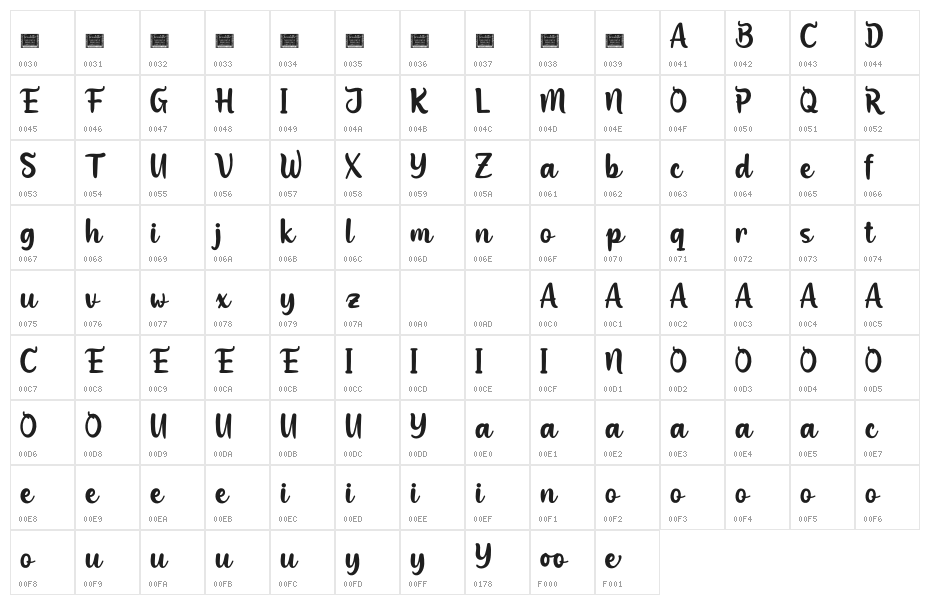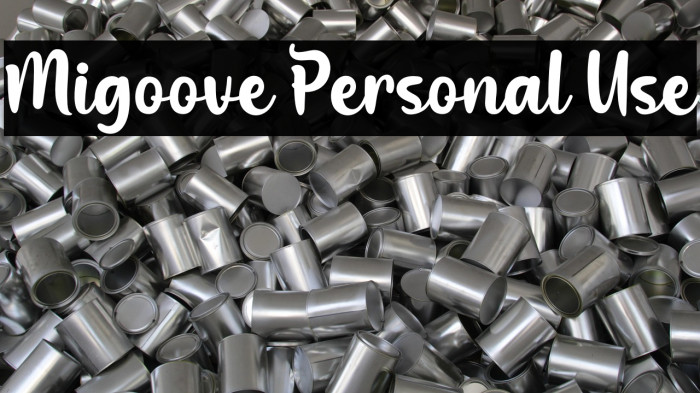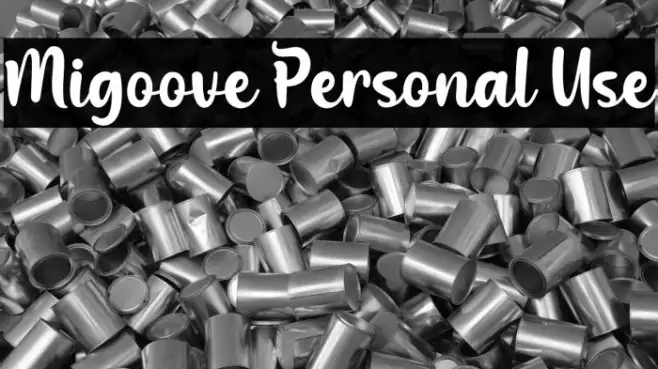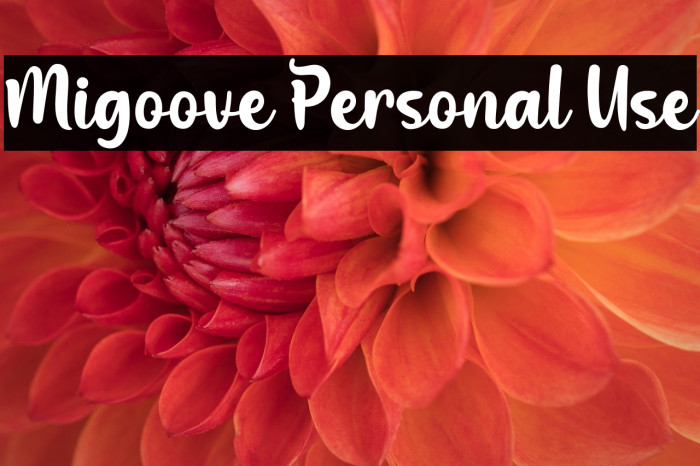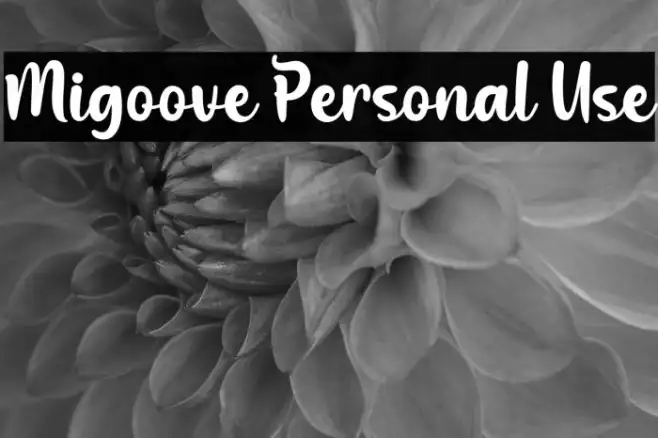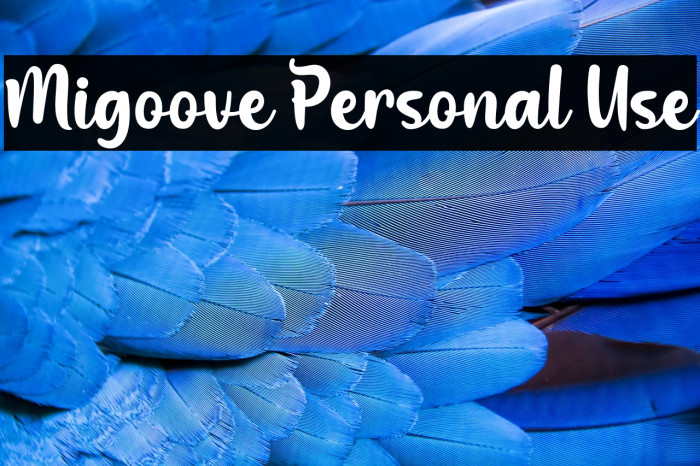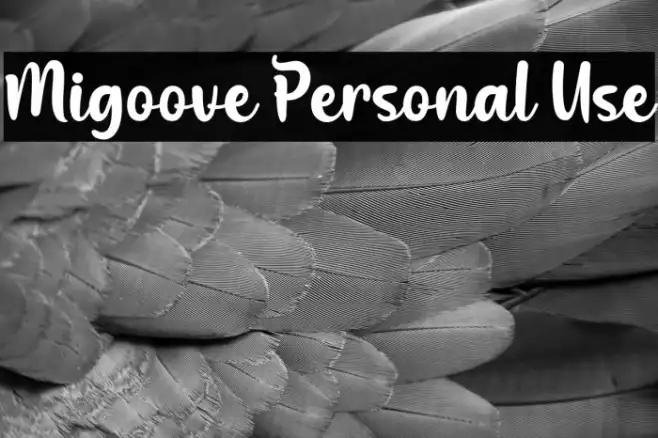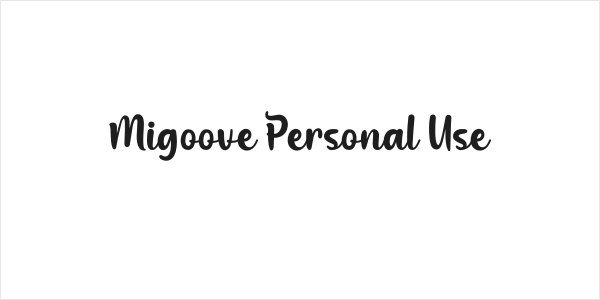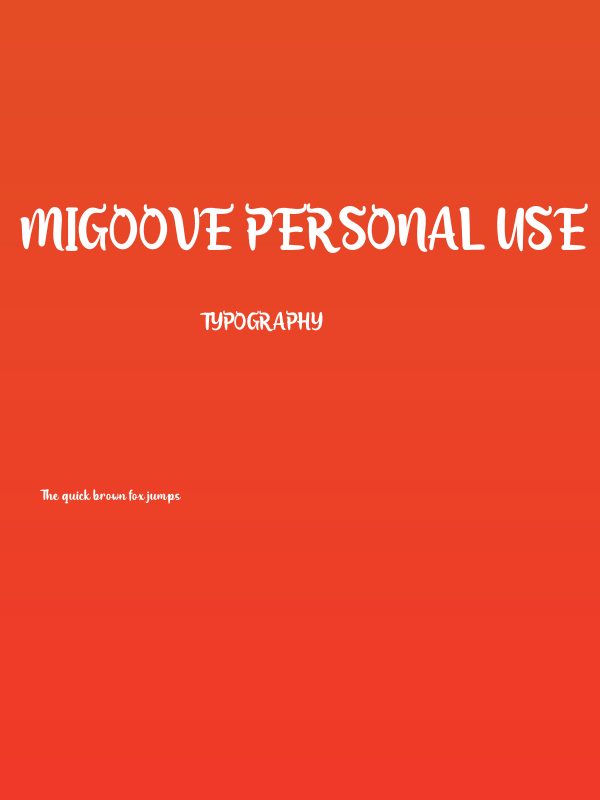
Migoove Personal Use Font
Migoove Personal Use Description
This font features a playful and dynamic script style with a handwritten feel. The uppercase letters are bold and slightly slanted, giving a sense of movement and energy. The lowercase letters maintain a consistent flow, with rounded edges and smooth curves that enhance its casual and approachable appearance. The font's overall design is characterized by its thick strokes and moderate contrast, making it highly legible while retaining a unique personality. It includes a full set of uppercase and lowercase letters, numerals, and a selection of special characters, ensuring versatility for various design needs.